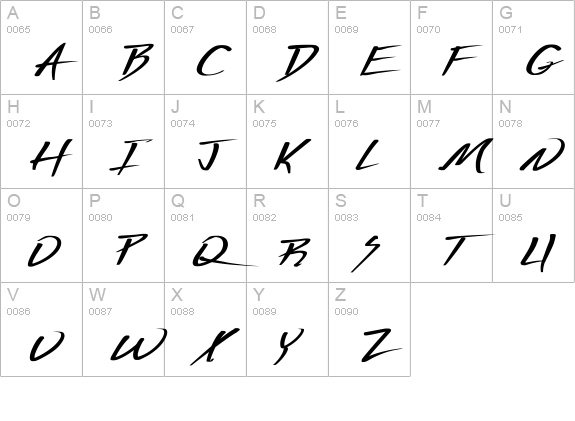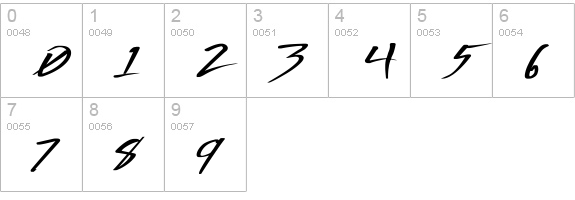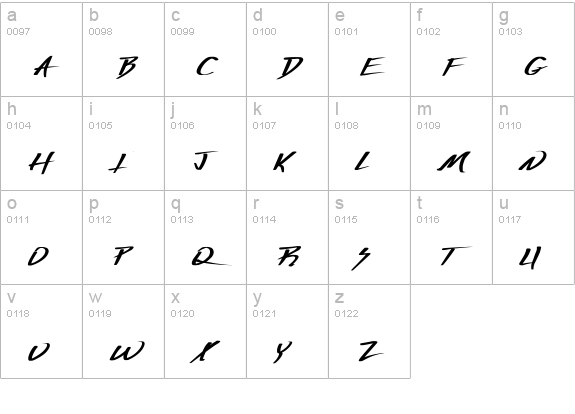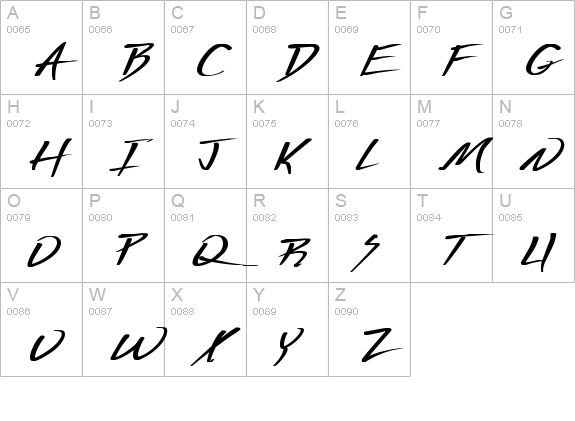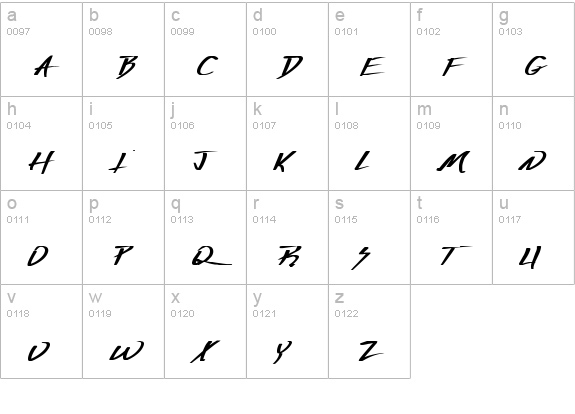
Vecker Wd Bold Font Details
Vecker Wd Bold is a strong, high-contrast variant in the Vecker typeface family \xE2\x80\x94 well suited to headlines, attention-grabbing titles, and strong calls-to-action.
Vecker Wd Bold is a striking typeface that exudes confidence and boldness. Its strong and robust letterforms make a powerful statement, making it perfect for eye-catching headlines and impactful designs. With its thick and weighty strokes, this font commands attention and leaves a lasting impression. What sets Vecker Wd Bold apart is not only its captivating aesthetics but also its accessibility. This incredible font is available for free download at FontsMarket.com, allowing designers, creatives, and enthusiasts to unleash their imagination without any inhibitions. Whether you're designing a captivating poster, an attention-grabbing logo, or an engaging website, Vecker Wd Bold is the ideal choice to make your content stand out. Its versatility allows it to adapt to various design styles and contexts, ensuring that your message is conveyed with maximum impact. The clean and crisp lines of Vecker Wd Bold enhance legibility, making it readable even at smaller sizes. Its balanced proportions and carefully crafted details make it a reliable choice for both print and digital applications. This font effortlessly combines modernity with a touch of classic elegance, making it suitable for a wide range of projects - from corporate branding to editorial layouts, packaging, and more. Vecker Wd Bold's timeless appeal ensures that it will remain relevant and impactful for years to come. Download Vecker Wd Bold for free at FontsMarket.com and unlock endless creative possibilities. With its distinctive character and easy accessibility, this font is a must-have in every designer's toolkit. Don't miss out on the opportunity to elevate your designs with Vecker Wd Bold and make a lasting impression.